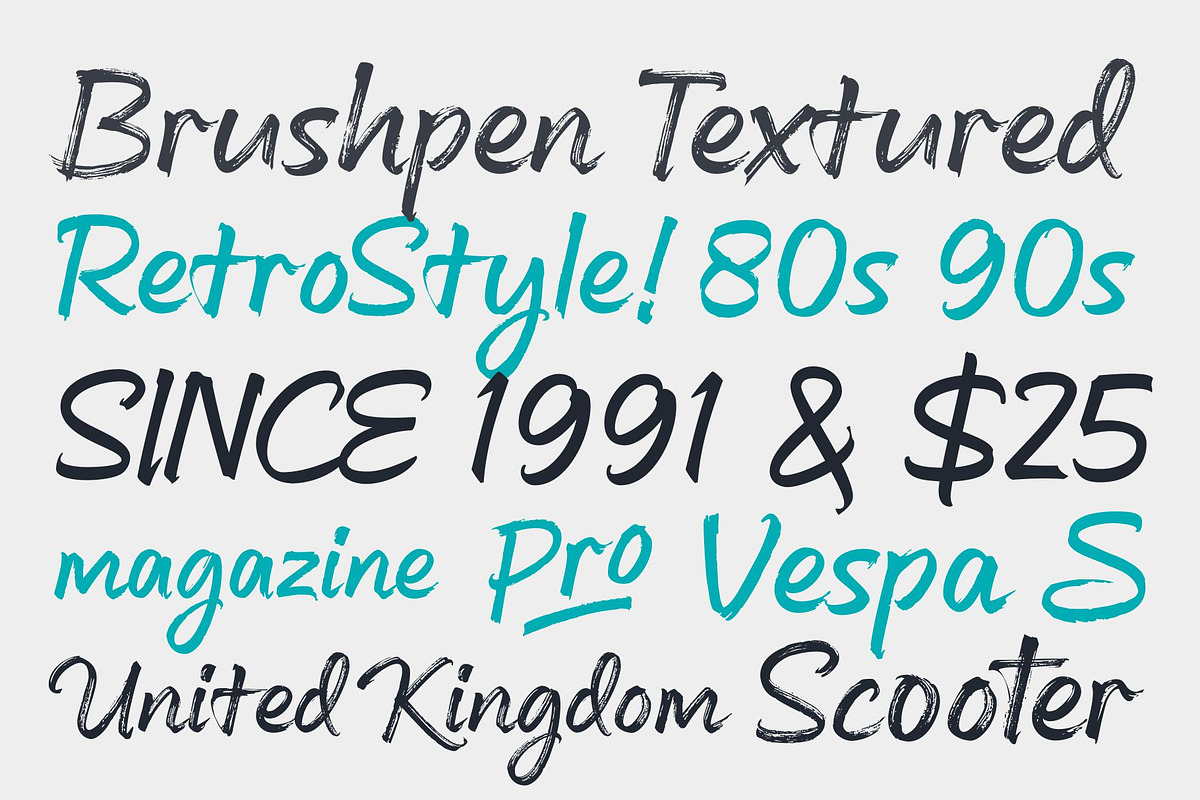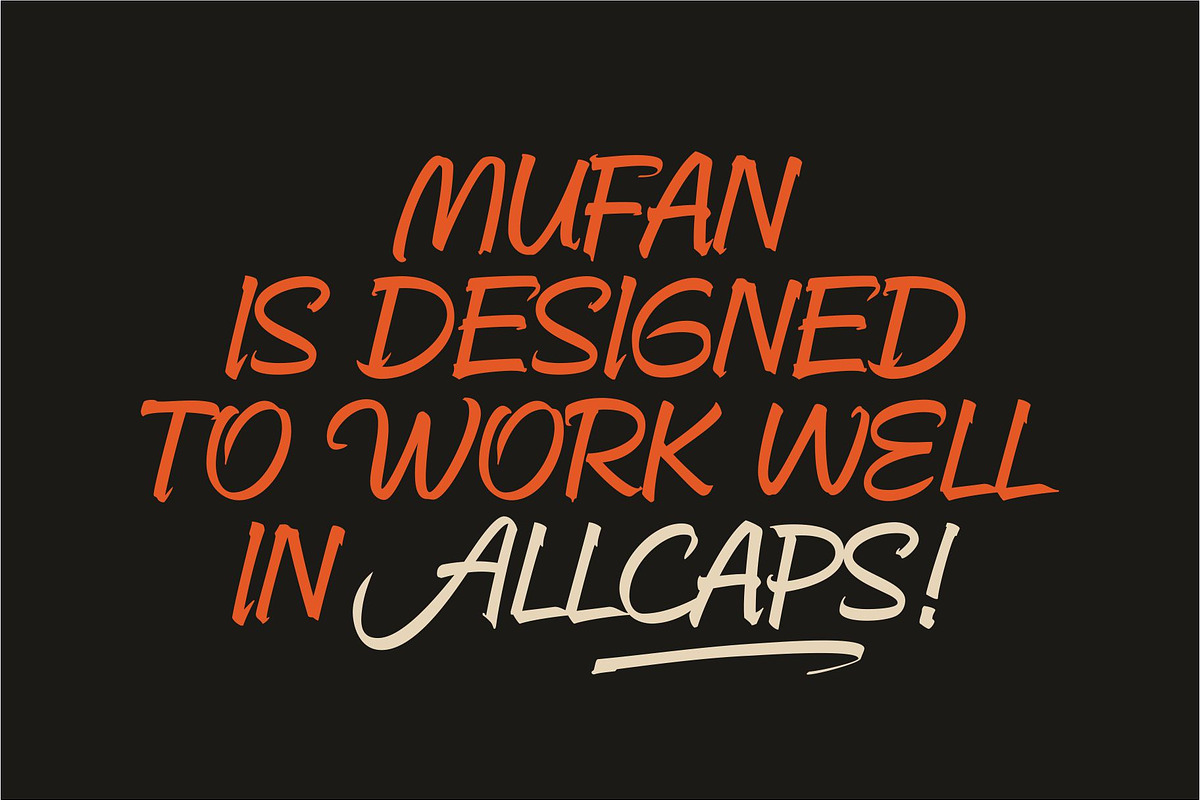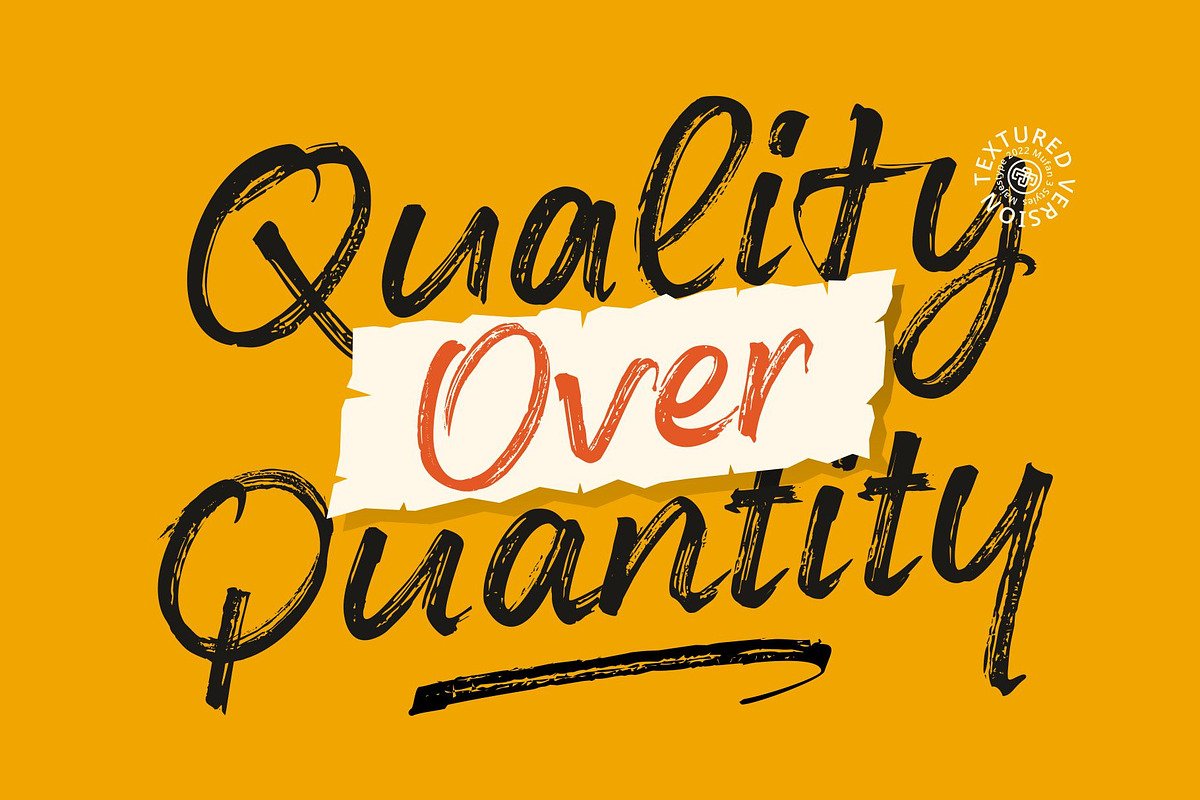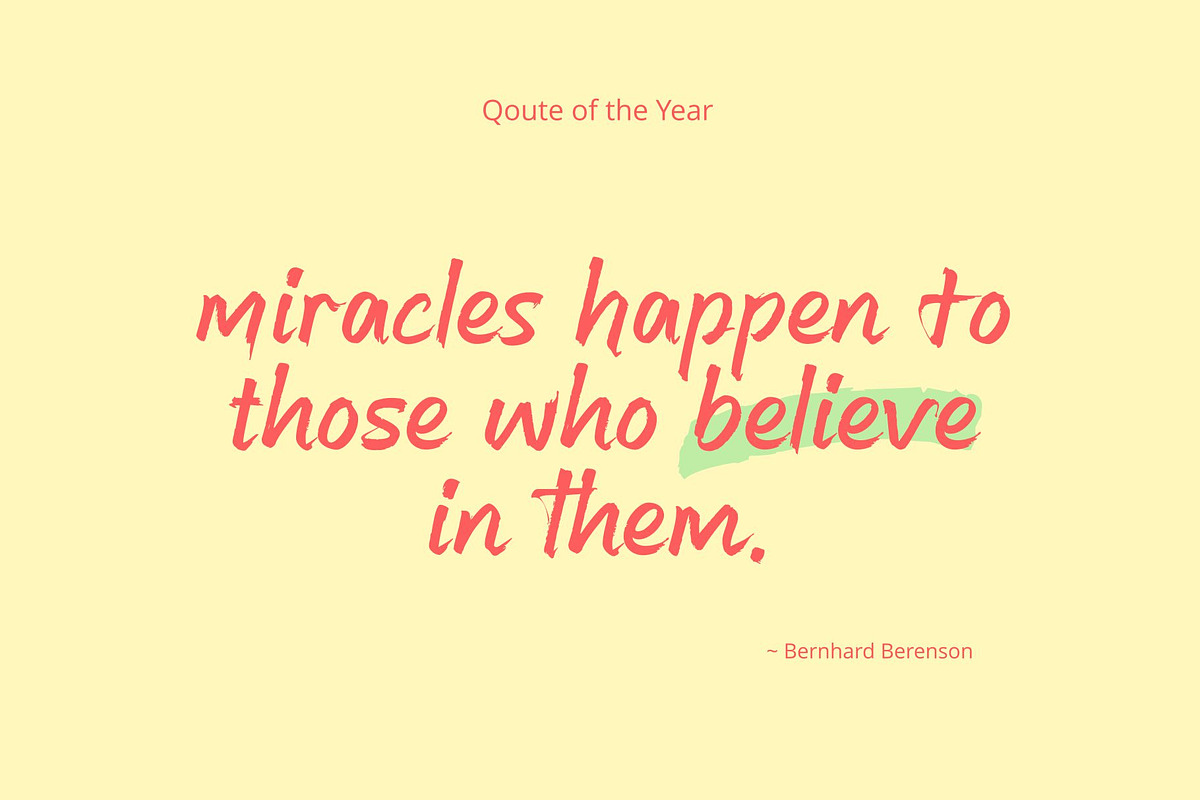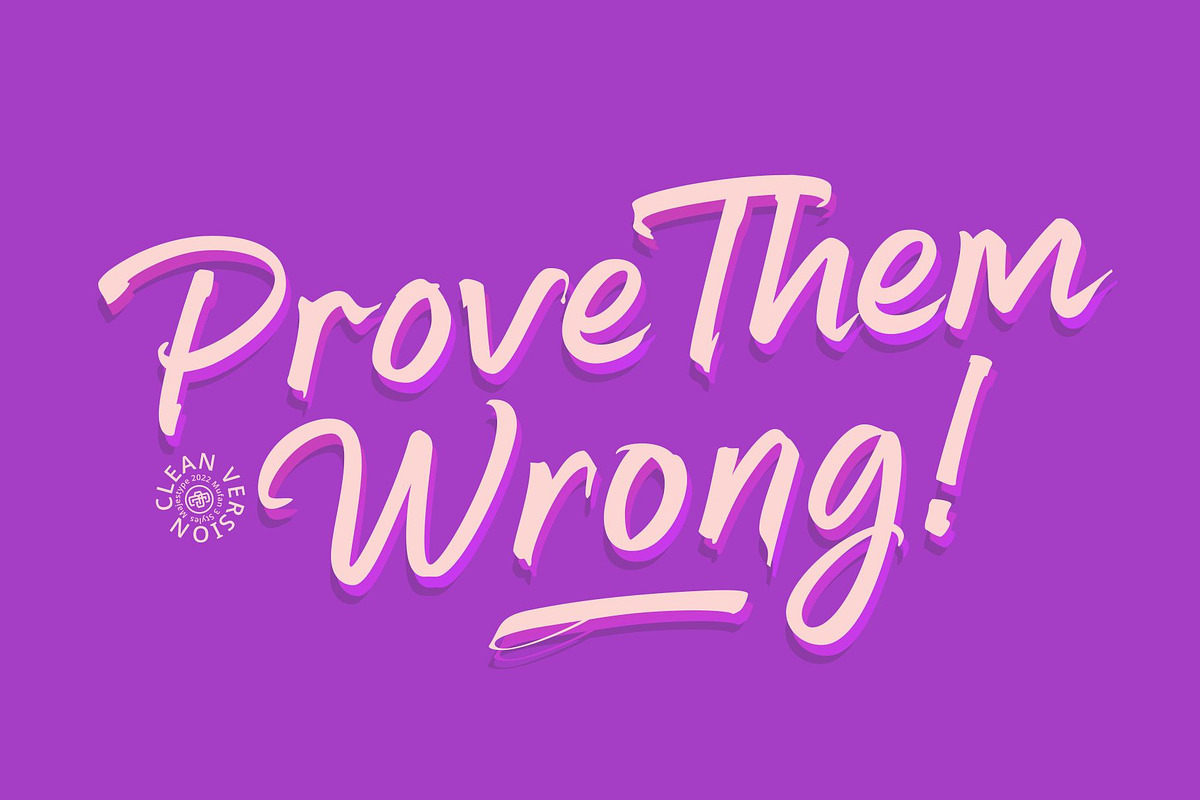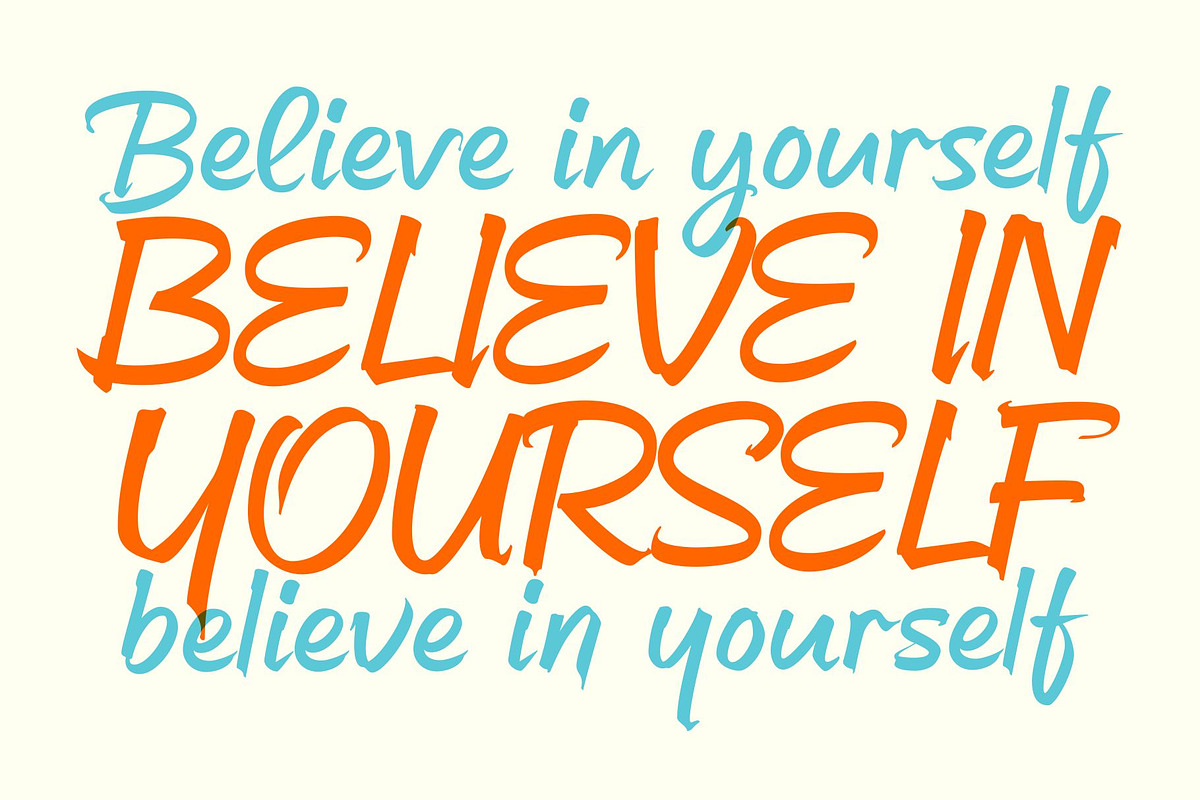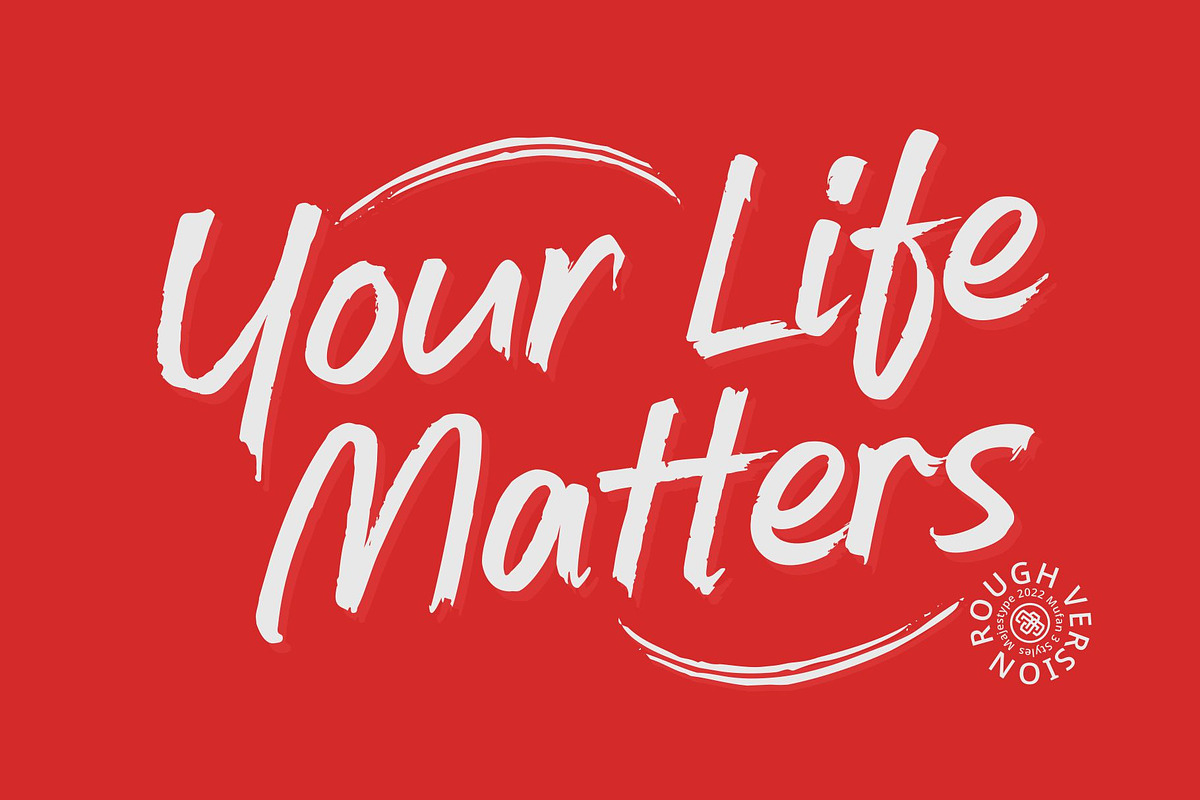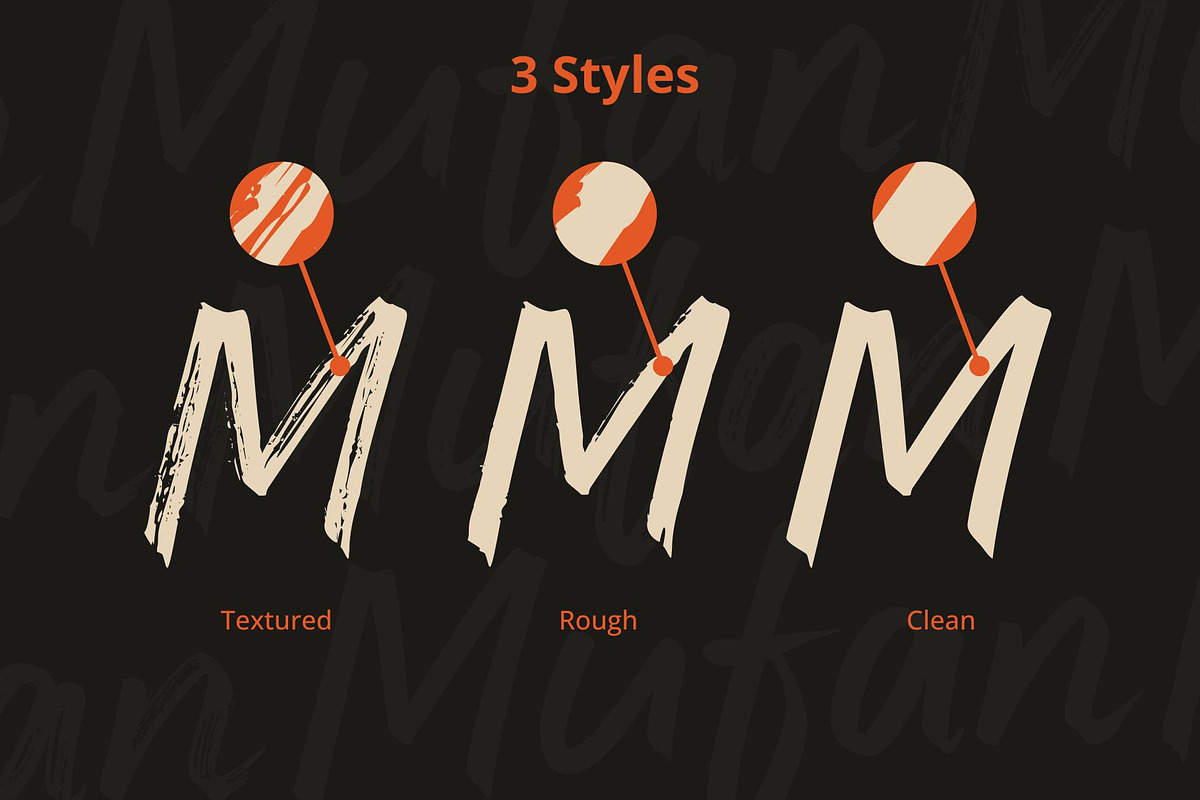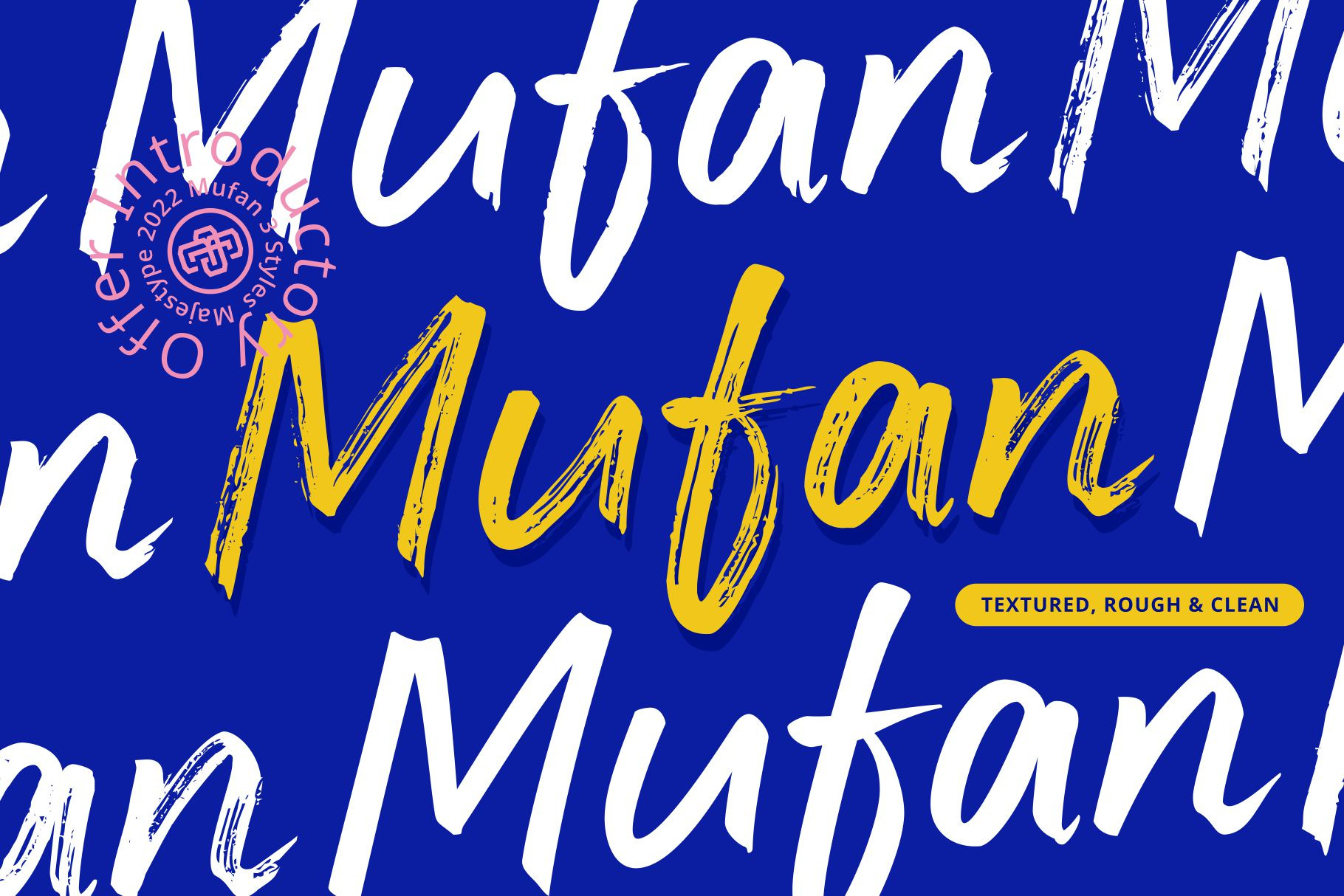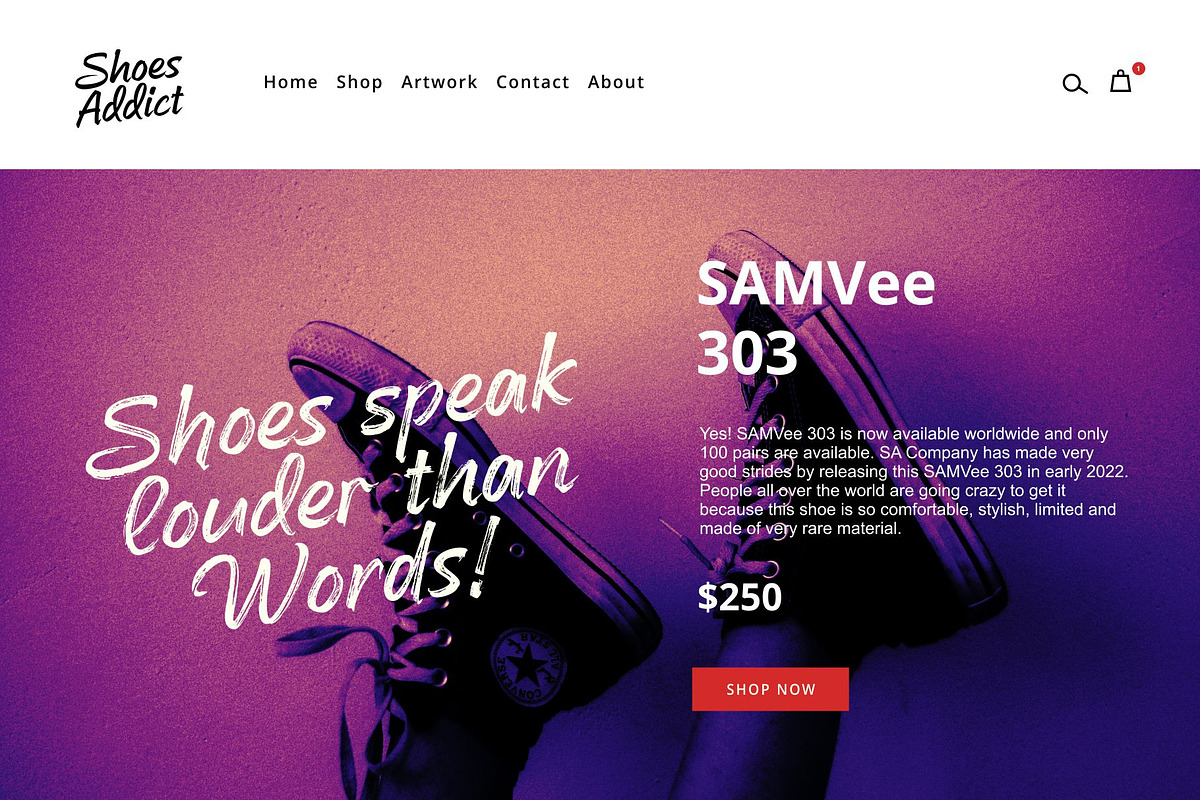
Mufan - Brush Retro Calligraphy Font
Mufan typeface project has a simple concept that emphasizes readability and can be used in a variety of settings. To achieve this, we created the typeface in three styles - textured, rough, and clean - with the aim of conveying a sense of handwriting that is both retro, vintage, and modern.
Mufan is designed to work well in various design contexts and features 260 glyphs, support for OpenType features, and is specially crafted to work in uppercase only, lowercase only, or in sentences and titles.